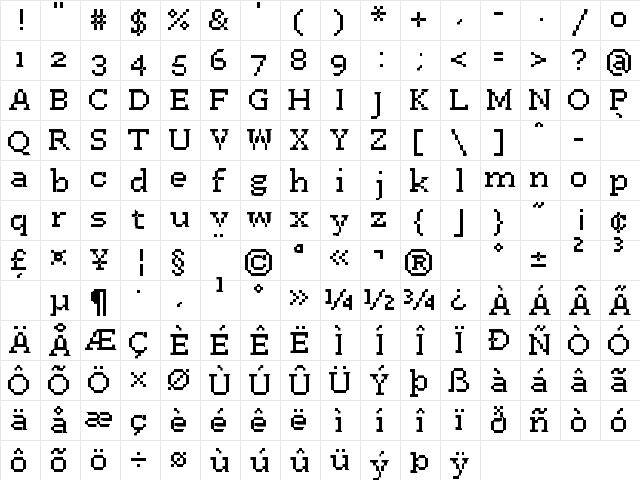
FFF Atlantis Condensed Regular Free Font
FFF Atlantis Condensed Regular
Foundry: Yusuke Kamiyamane
Design Context for FFF Atlantis Condensed
FFF Atlantis Condensed is a composed and adaptable typeface that performs quietly and consistently across a wide range of design contexts. Its narrow stance lets it pack a punch even in space-constrained designs.
Who designed the FFF Atlantis Condensed Regular font?